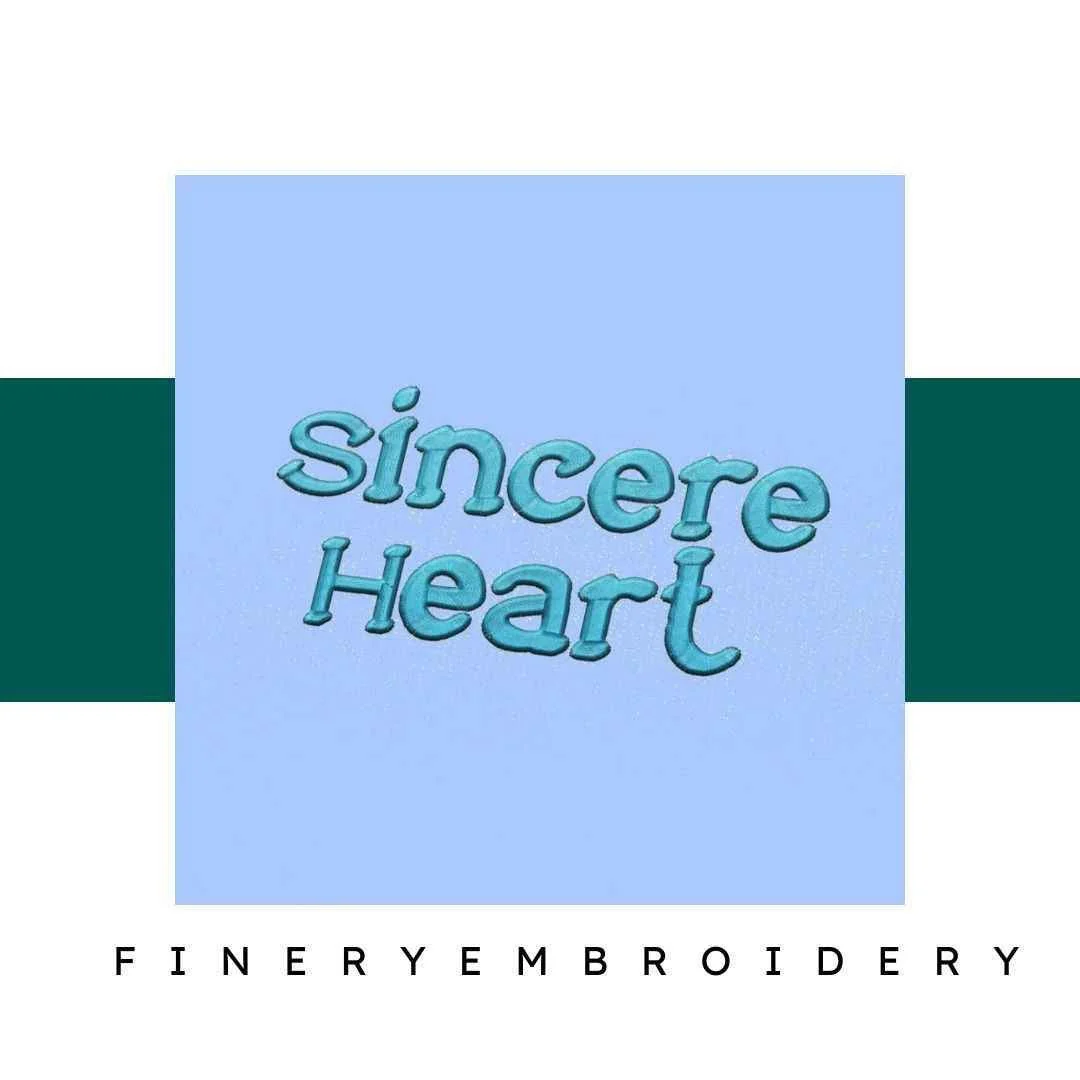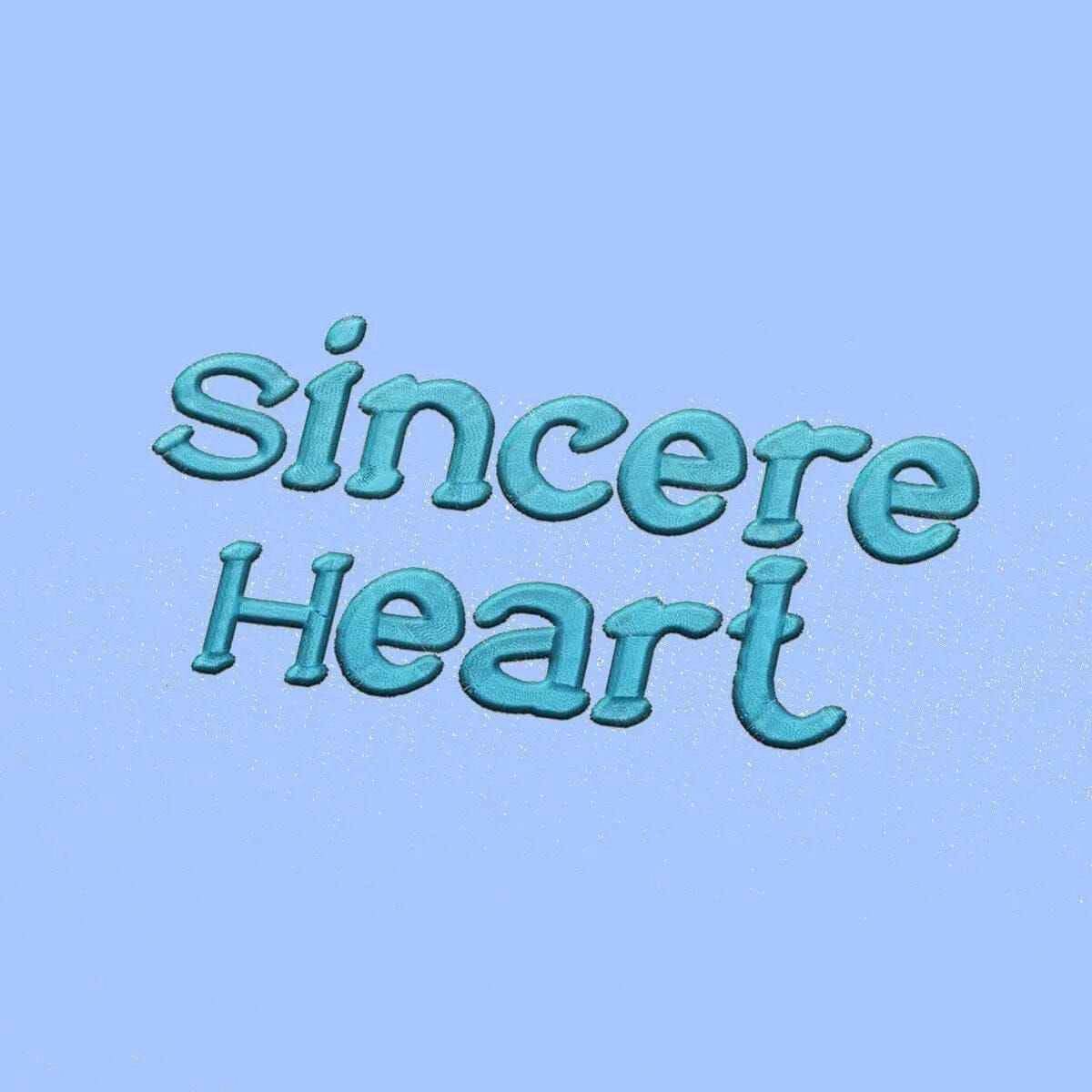
Sincere Heart Embroidery alphabet Font Set
Transform your embroidery projects with the Sincere Heart Embroidery Alphabet Font Set, where elegance meets creativity!
Introducing the Sincere Heart Embroidery Alphabet Font Set, a premium collection designed for those who appreciate the finer things in embroidery. Whether you're a hobbyist or a professional, this exquisite font set is perfect for adding a personal touch to your garments, accessories, and home decor items. Elevate your creations with unique, high-quality letters that inspire creativity!
Why You'll Love This Design
This font set stands out with its intricate details and elegant styles, making each letter a masterpiece. The Sincere Heart design is not just about letters; it’s about expressing emotion and charm through your embroidery. Each character is thoughtfully crafted to ensure you can create stunning pieces that resonate with warmth and personality.
Creative Applications
The Sincere Heart Embroidery Alphabet Font Set opens a world of creative possibilities. Use it to personalize clothing, create memorable gifts, or enhance your home decor. Imagine the joy of seeing your loved one's name beautifully displayed on a handmade item! This set is perfect for monograms, quotes, and creative labeling that showcases your unique style.
Digitized for Passionate Embroiderers